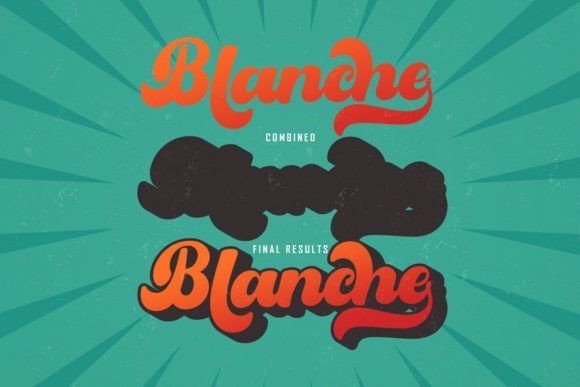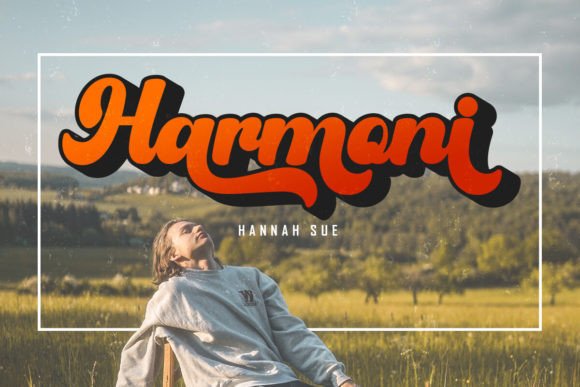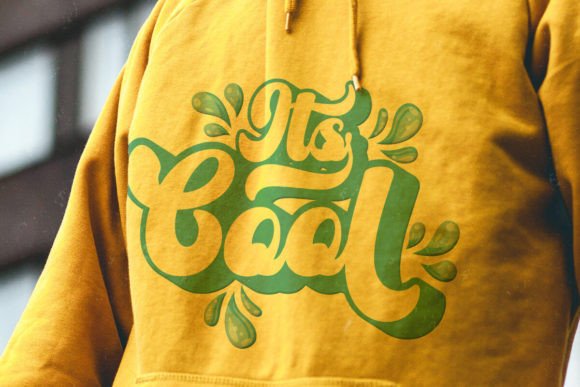
Retro Blanche Font
About the Retro Blanche Font
Crafted with precision, the Retro Blanche Font is ready to bring your ideas to life. Blanche is a hand-drawn, retro script font. This font is perfect for all your fun designs! Use Blanche to create logos, branding, stickers, shirts, signs, posters, quotes, instagram posts, procreation designs and more!
Retro Blanche’s playful, hand-drawn quality makes it ideal for projects requiring a vintage or whimsical feel. It excels in headlines, short text blocks on posters, social media graphics, and packaging where its character can shine. Avoid using it for large bodies of text or UI elements; its informal nature hinders readability in extended use.
Pair Retro Blanche with a clean sans-serif like Montserrat for a balanced contrast, or a geometric sans-serif such as Futura for a more modern feel. For a sophisticated touch, consider pairing it with a subtle serif like Garamond. These pairings provide strong visual anchors to ground the script’s informality.
The overall personality is best described as cheerful and nostalgic, suitable for brands focused on crafts, vintage fashion, or playful products. Its hand-drawn nature adds an authentic, personal touch.
Retro Blanche Font Usage Examples
Retro Blanche Font Example